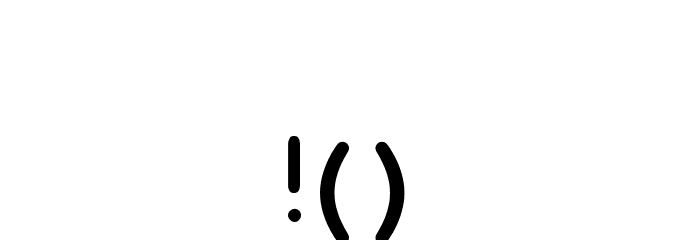
Mothanna Font
This font features a unique and artistic design, characterized by its abstract and minimalistic representation of characters. The symbols depicted are not traditional alphanumeric characters, but rather a creative interpretation that suggests a modern and avant-garde style. The use of simple lines and curves gives it a clean and sophisticated appearance, making it suitable for artistic and contemporary projects. Its design is open to interpretation, allowing for a wide range of creative applications.
An abstract and artistic font with a modern and minimalistic style.
- Proposed Projects: Ideal for modern art installations, abstract branding, and creative design projects.
- Use Case: Artistic displays, creative branding, modern design projects.